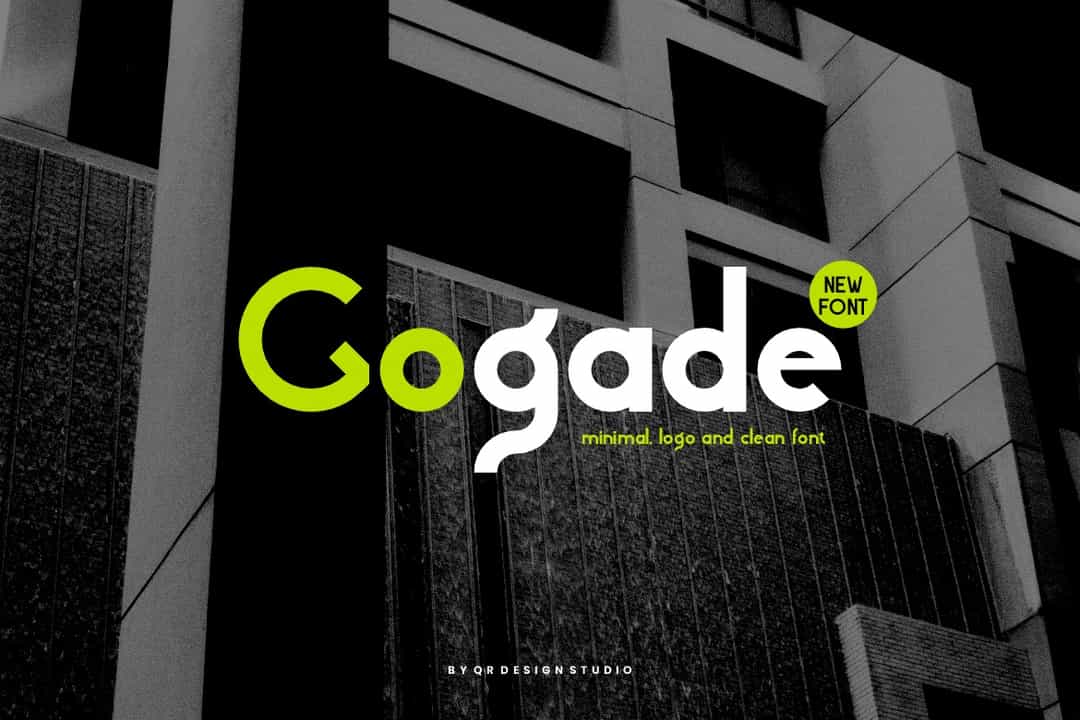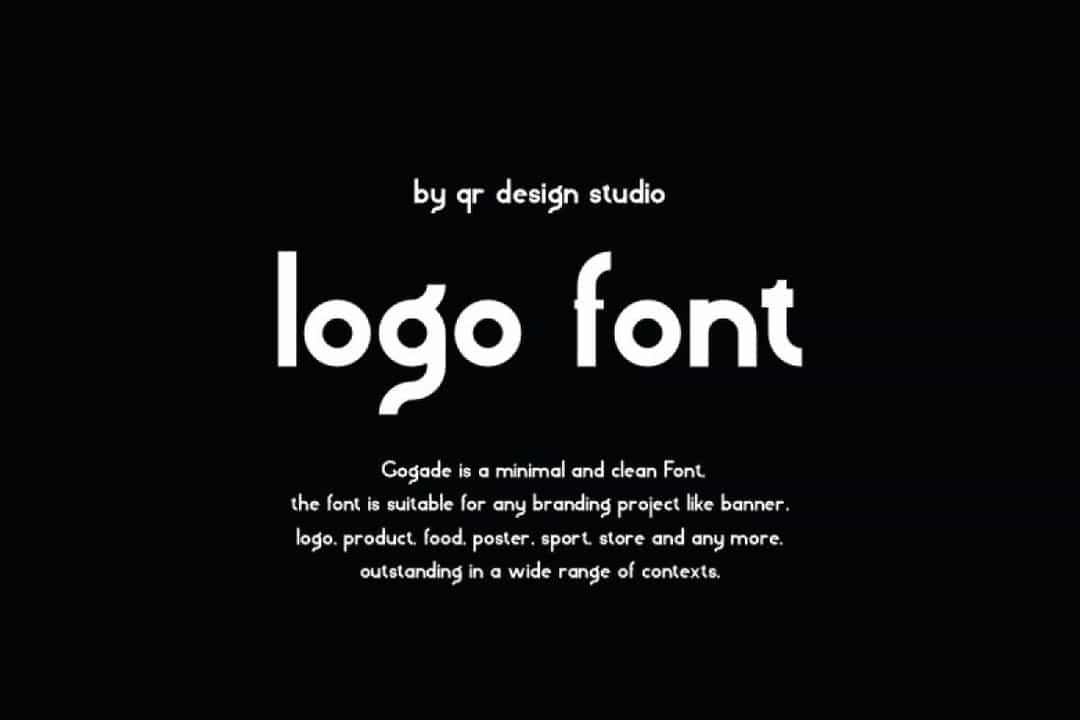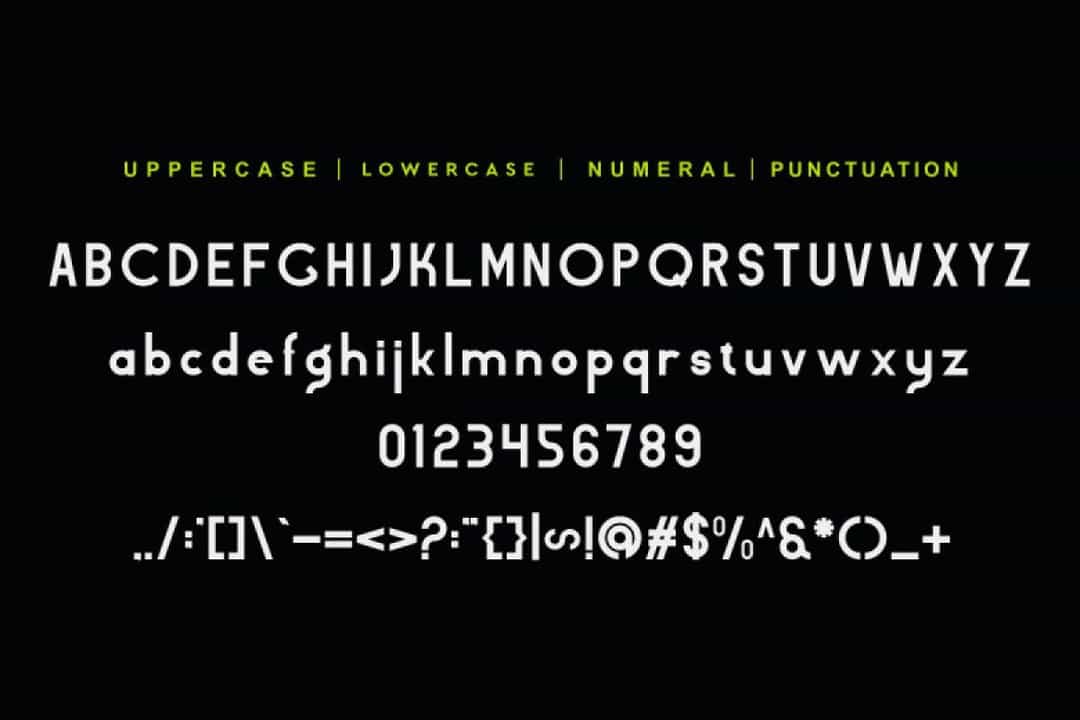
Gogade is a very confident and an outspoken sans serif font. Regardless of the theme you are working on, this font will definitely be a valuable addition to the fonts list – it can truly improve any piece of work. The font can be used in any branding project be it for a poster, logo, sports and many other uses. Excellent in many different situations.